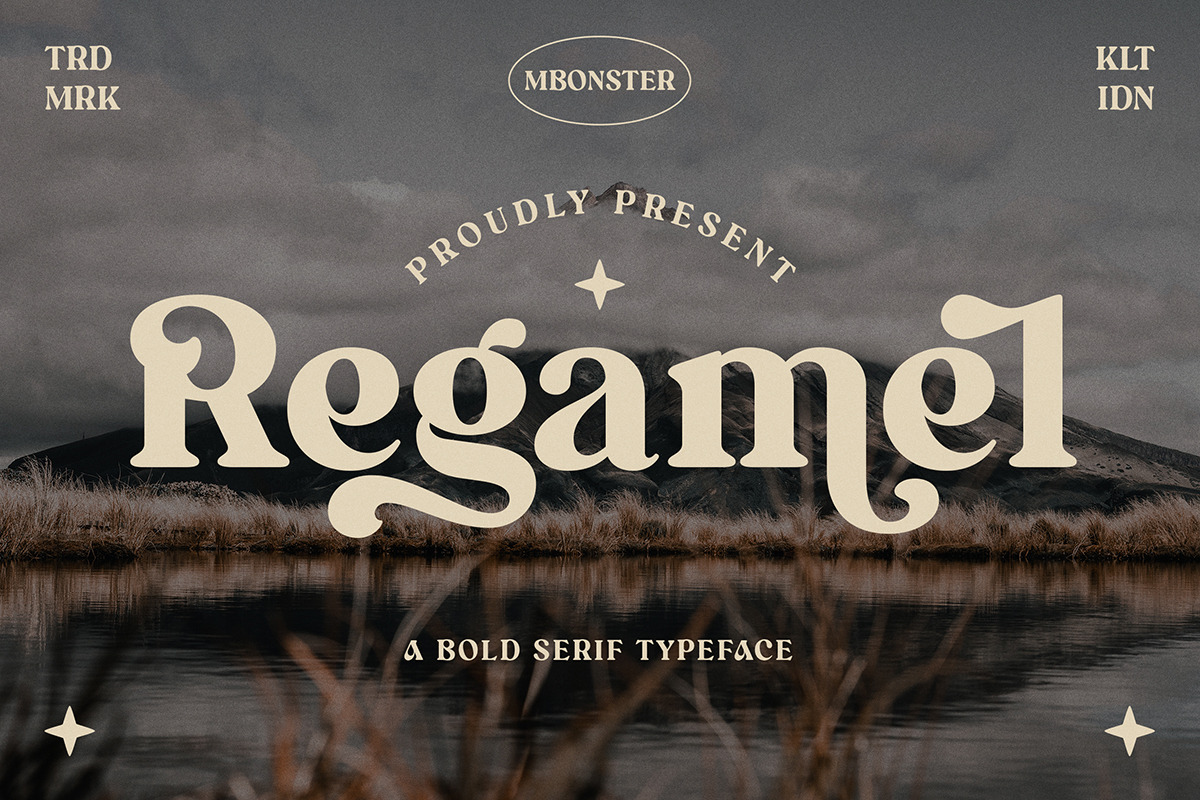
Regamel - Bold Serif Font
Regamel is a bold serif typeface that has both modern and retro look. This Typeface comes with 55 unique alternates and ligature that is suitable for any graphic designs such as branding materials, layout, magazine, t-shirt, logo, print, poster, quote, and any project.